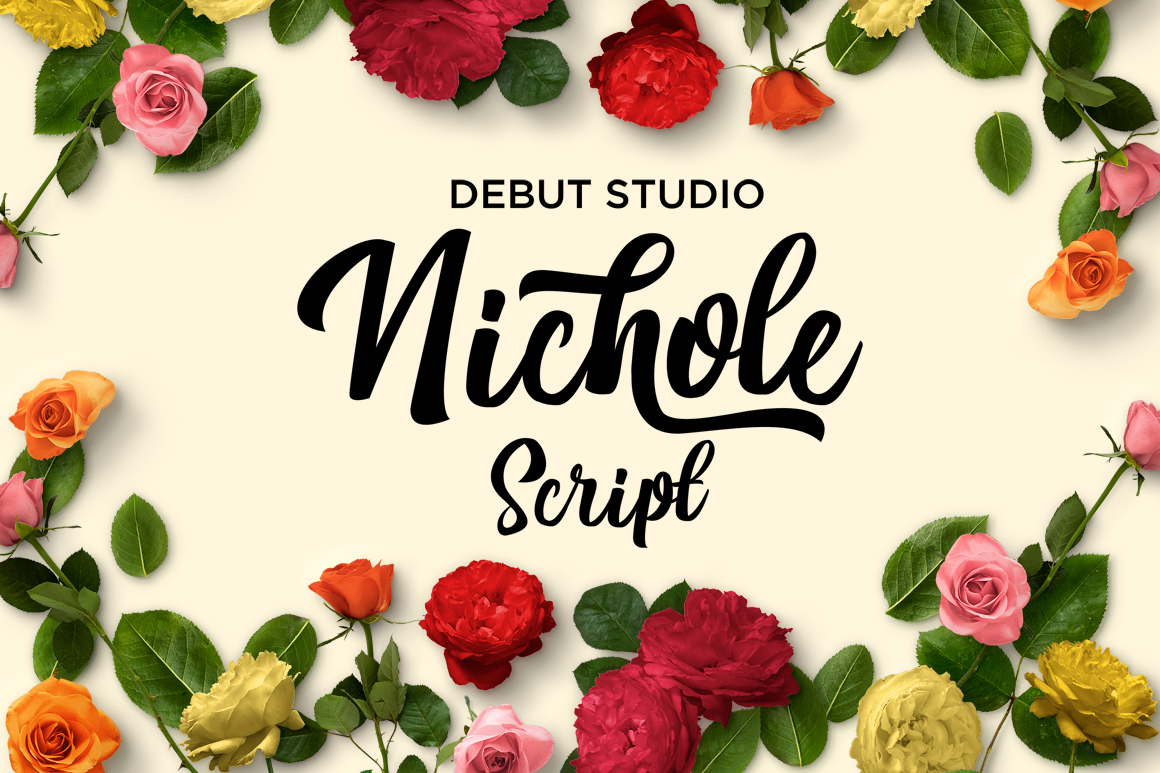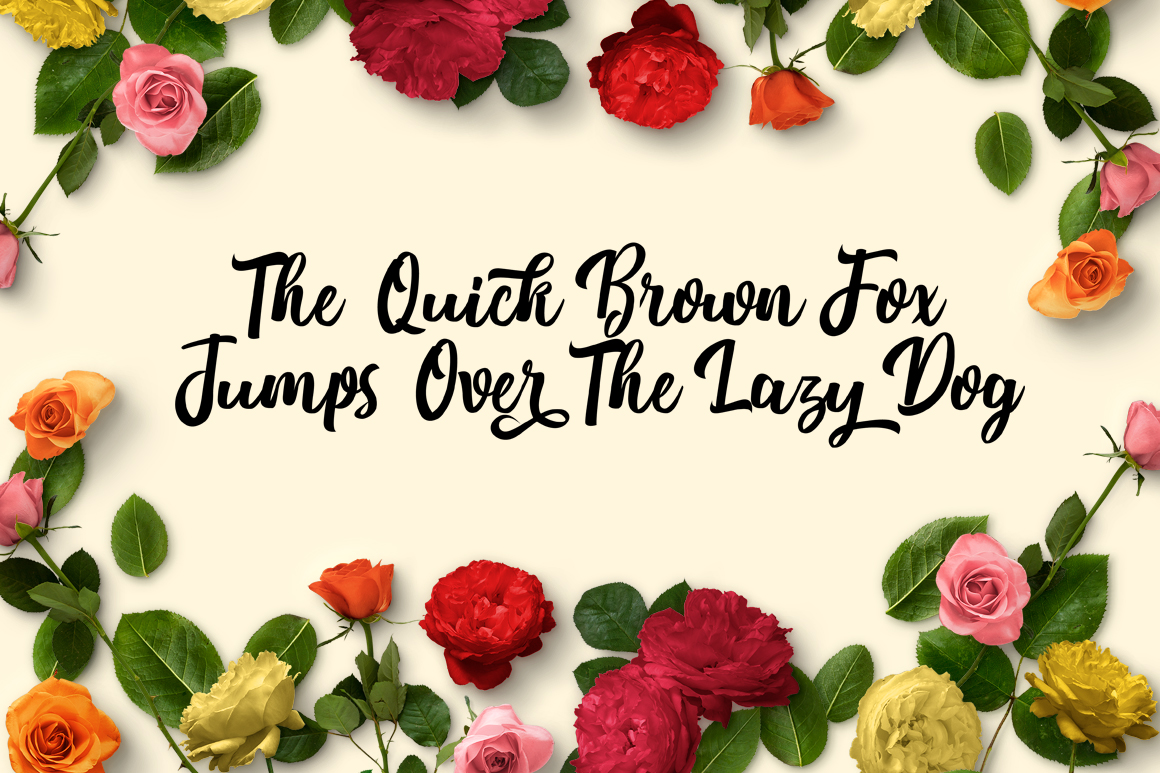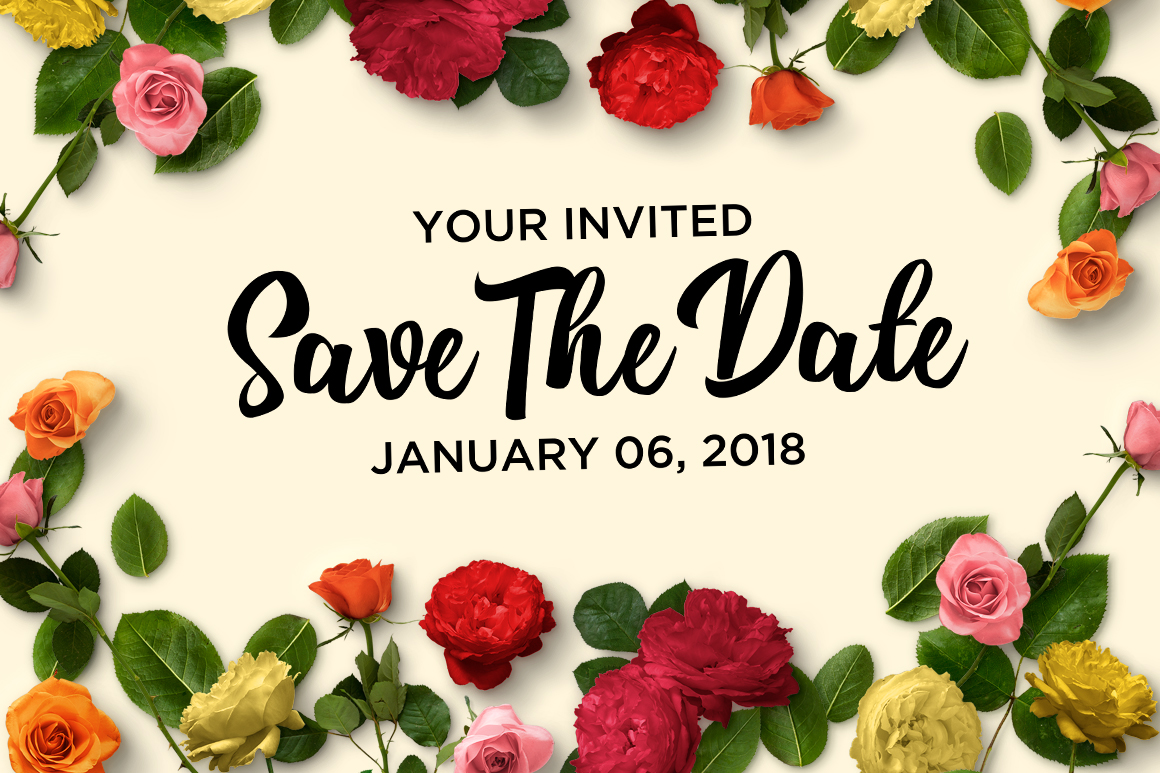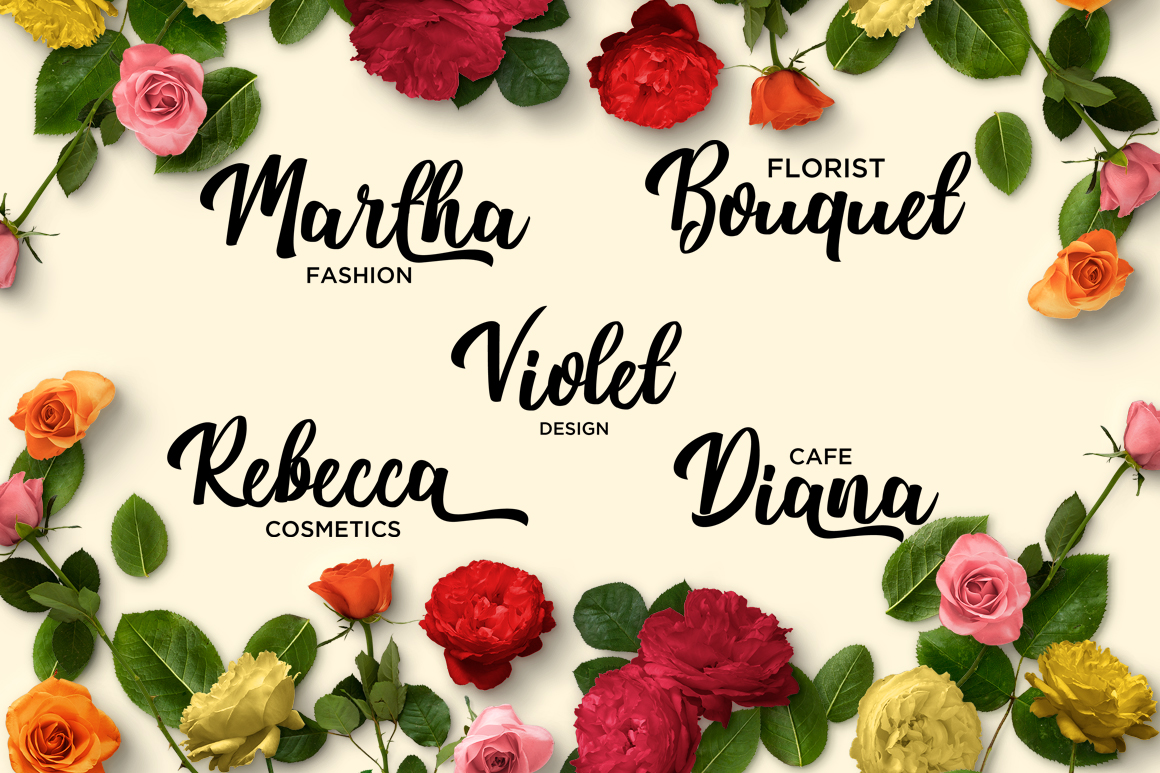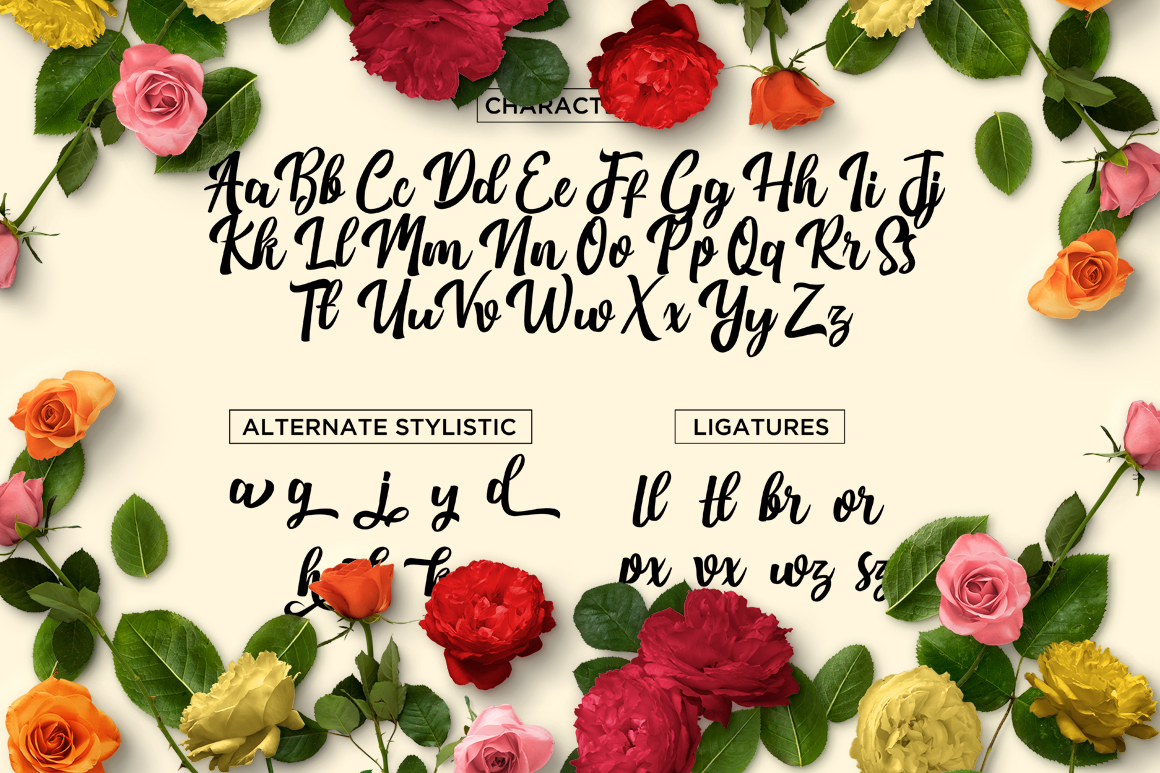
Nichole Script Font
About Nichole Script Font
Nichole Script is suitable for young, passionate designs. With an extremely modern and appealing style, this script font is perfect for displays and other design purposes that are meant to grab attention.